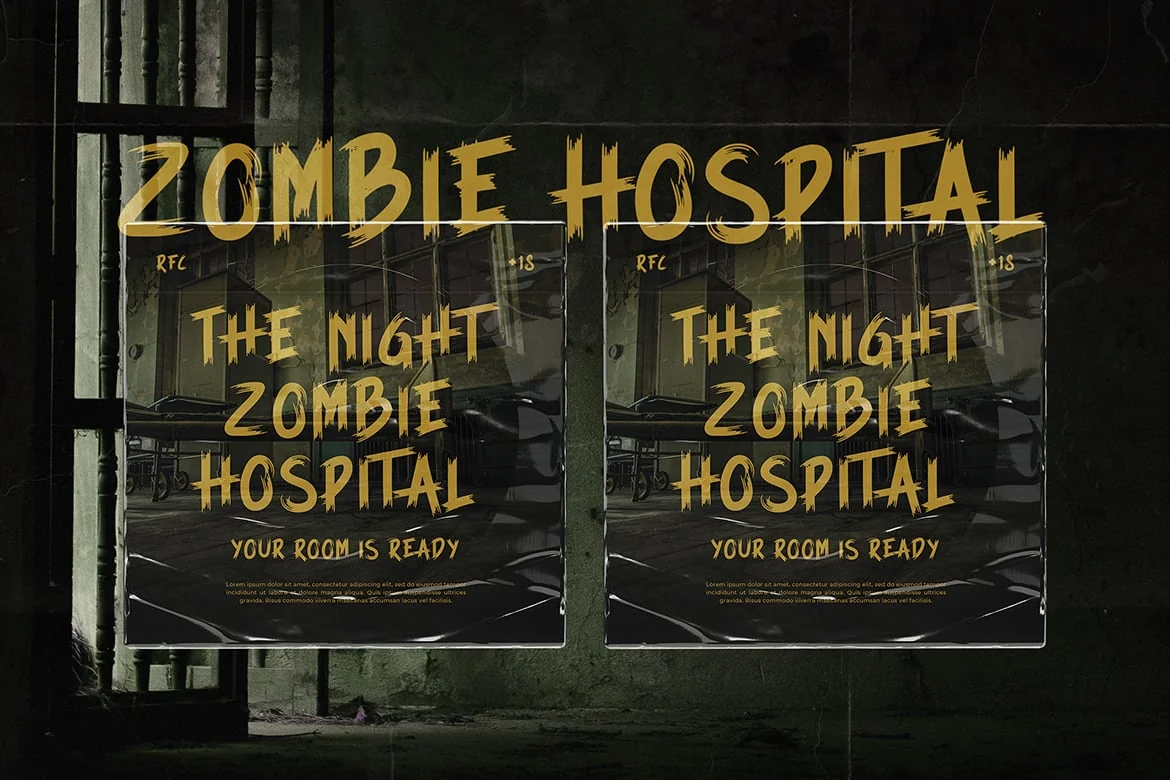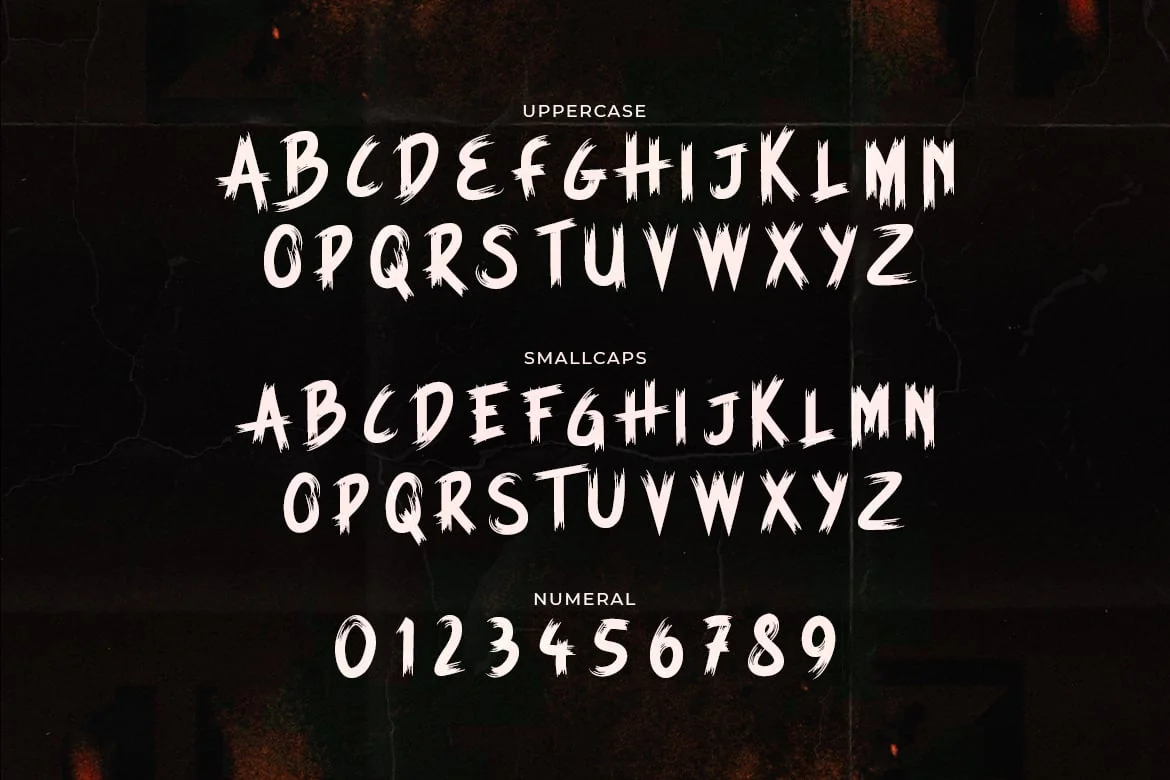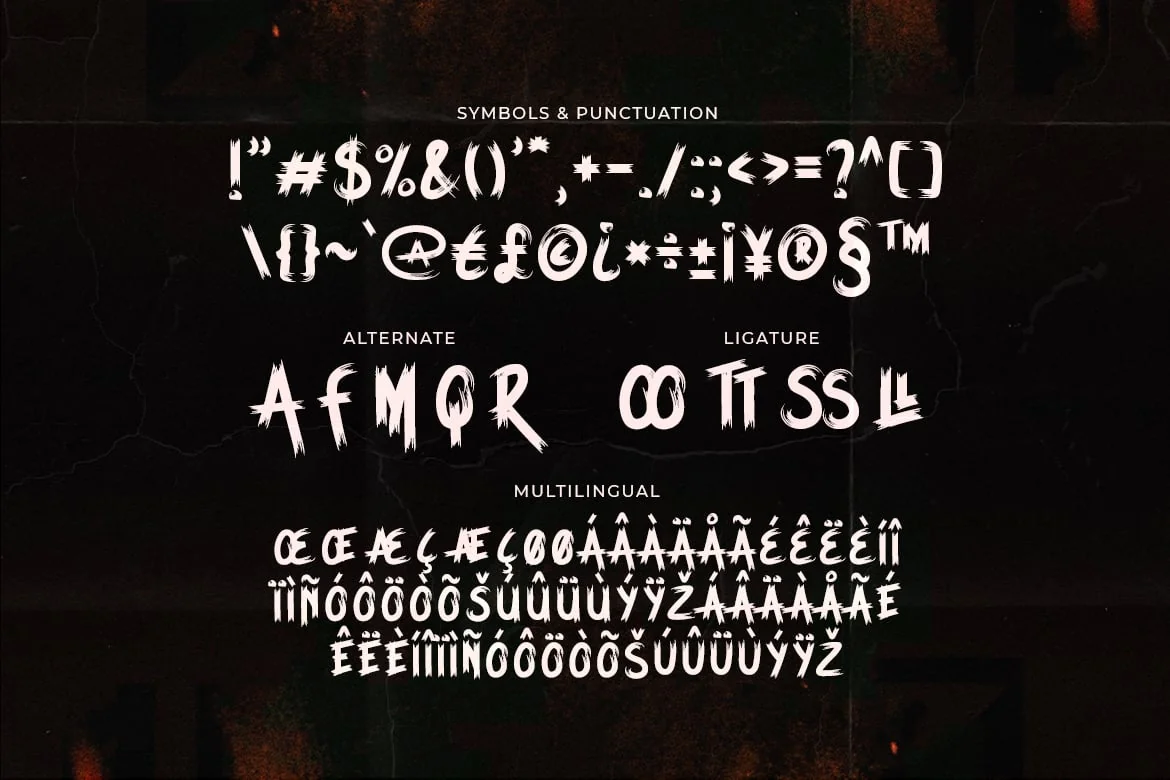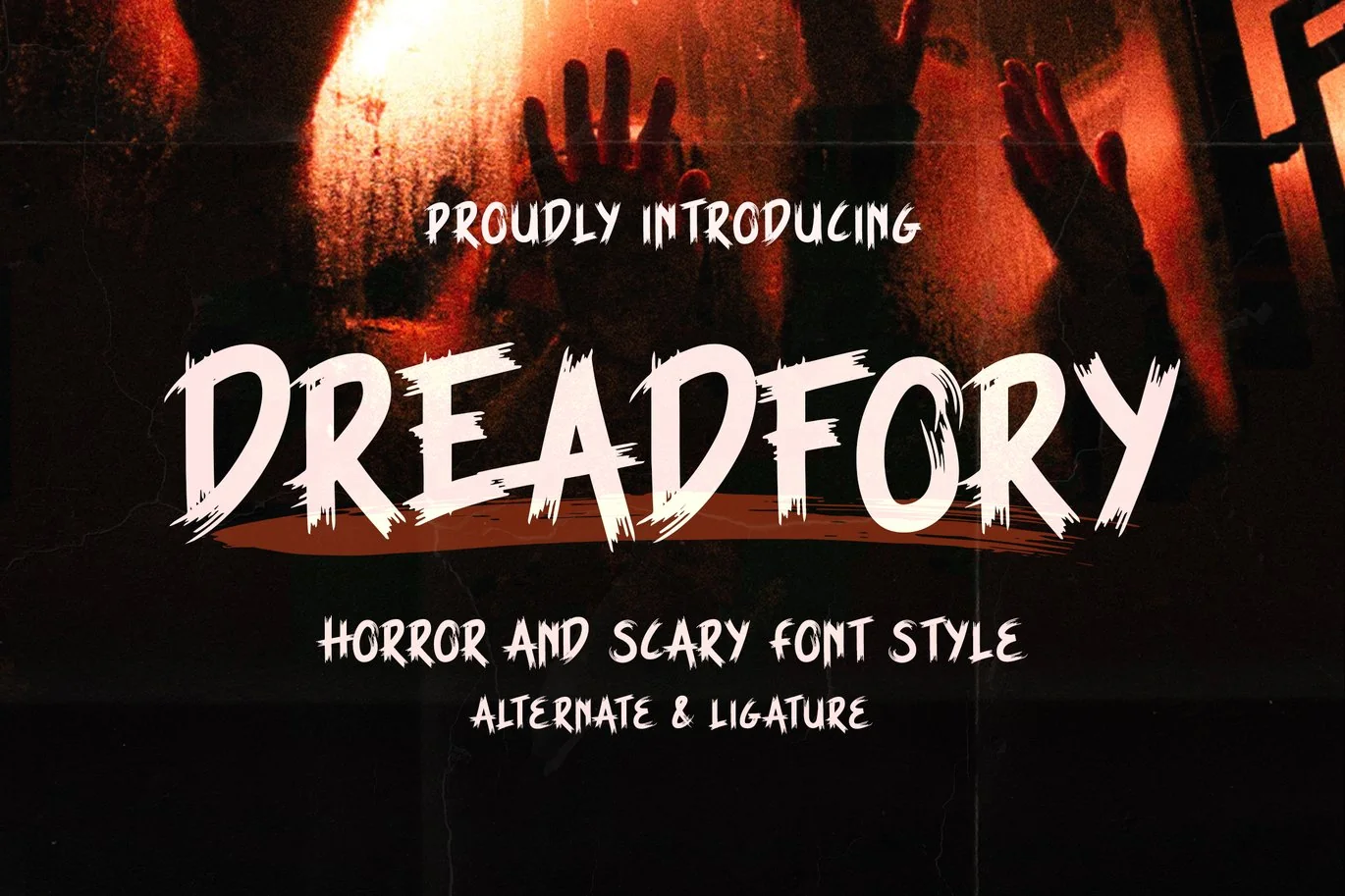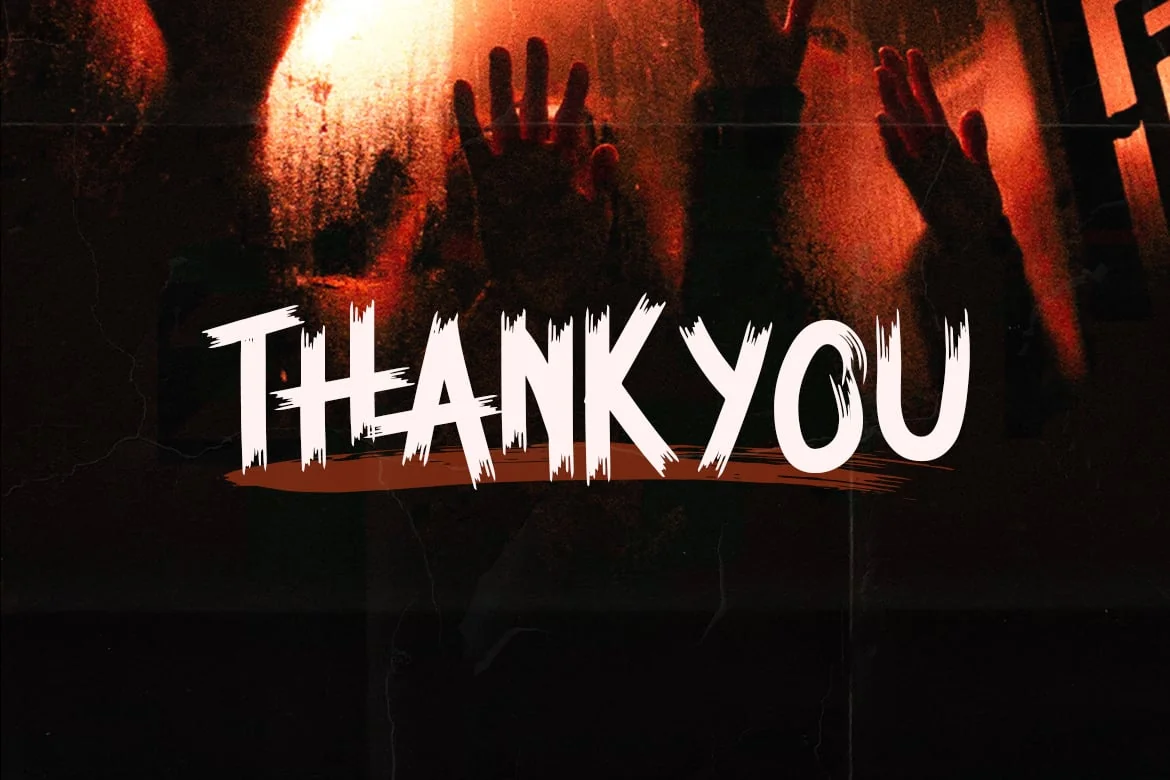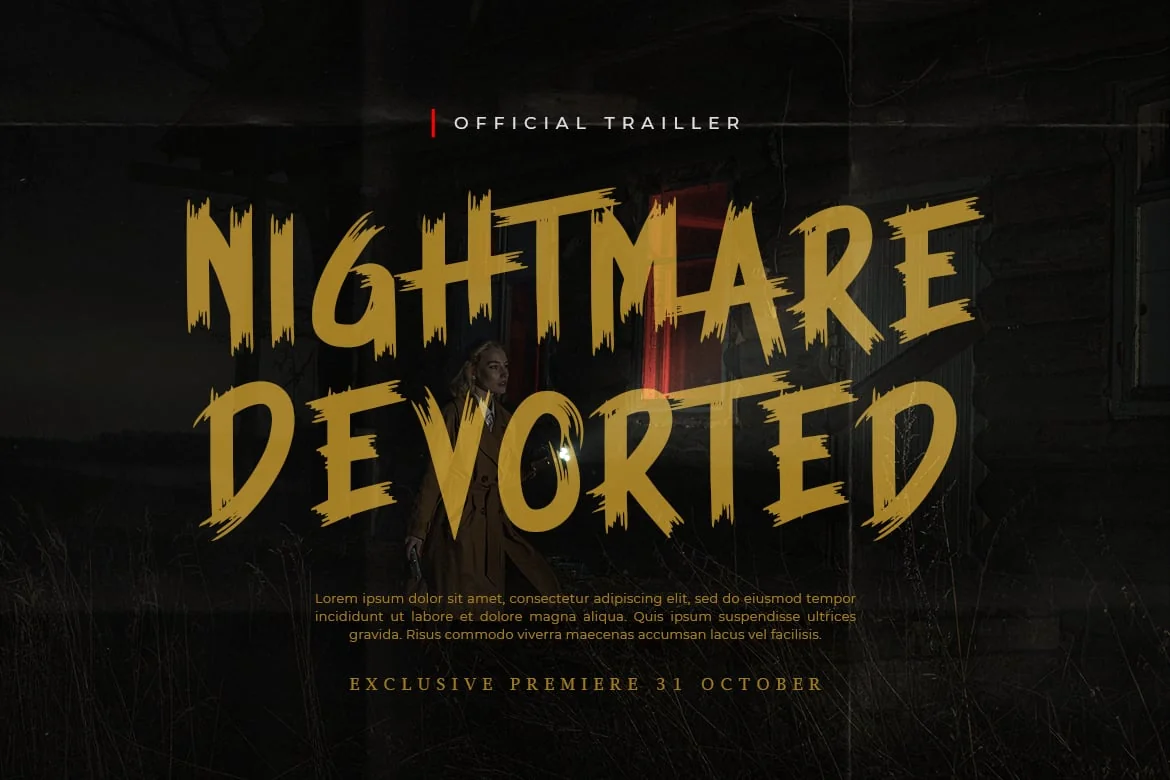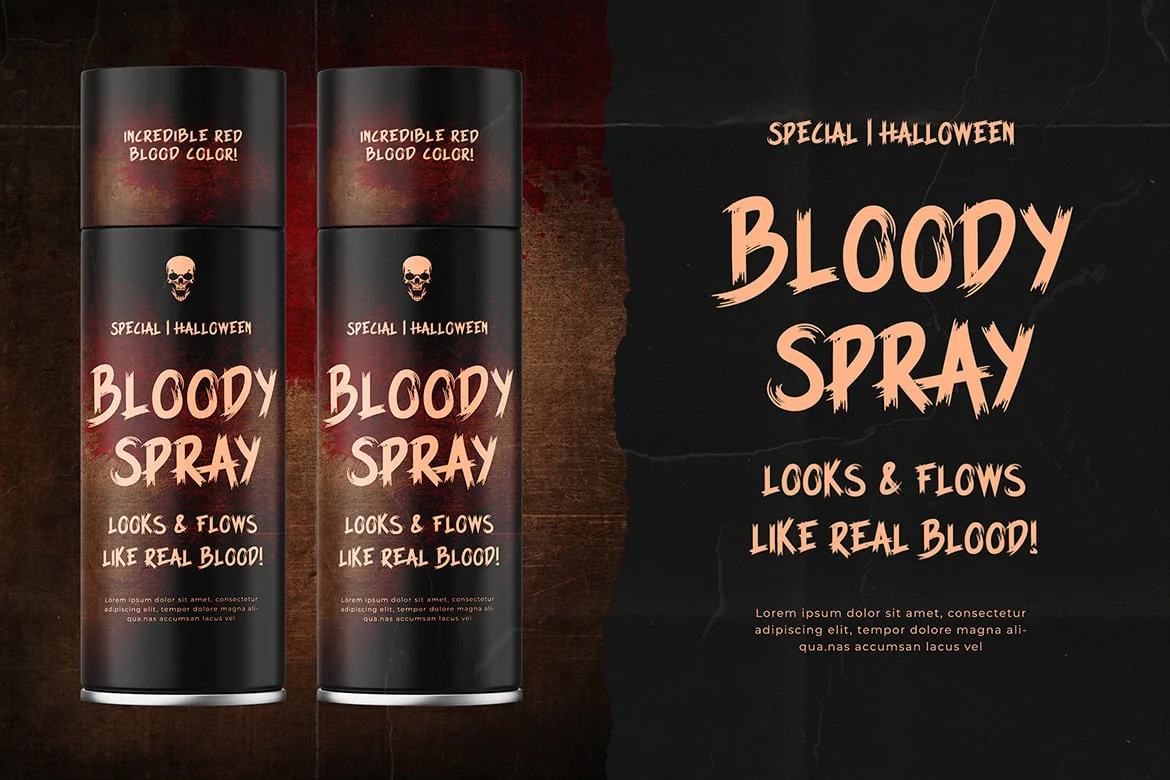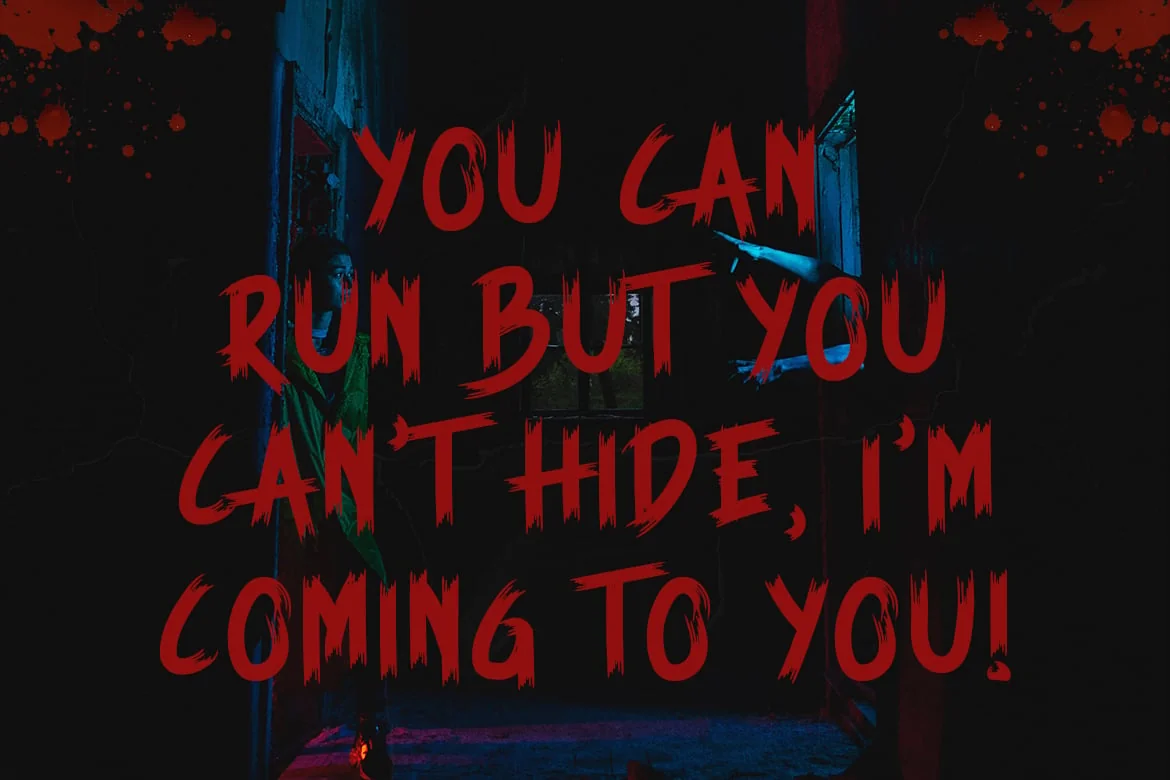
Deadfory – Horror And Scary Font
Dreadfory is a horror display font.
Add it to your scary crafts, horror movie posters, t-shirts and anything else that requires a spectacular look.